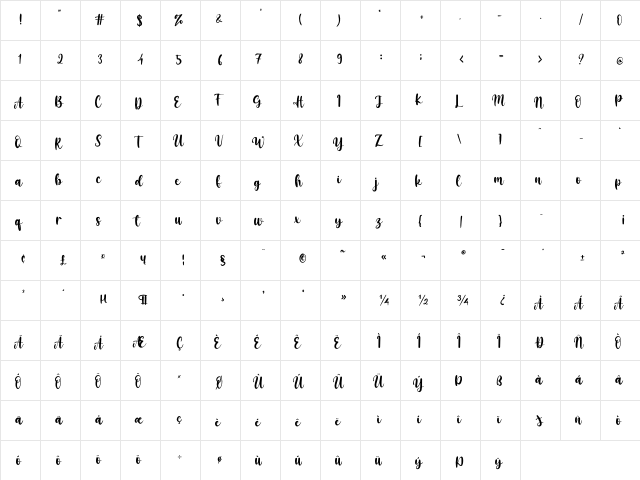
Queency Regular
Design Context for Queency Typeface
Queency is a composed and adaptable typeface that performs quietly and consistently across a wide range of design contexts.
Pro Tip: Pair Queency with a font of contrasting weight or personality to build a more expressive typographic hierarchy.